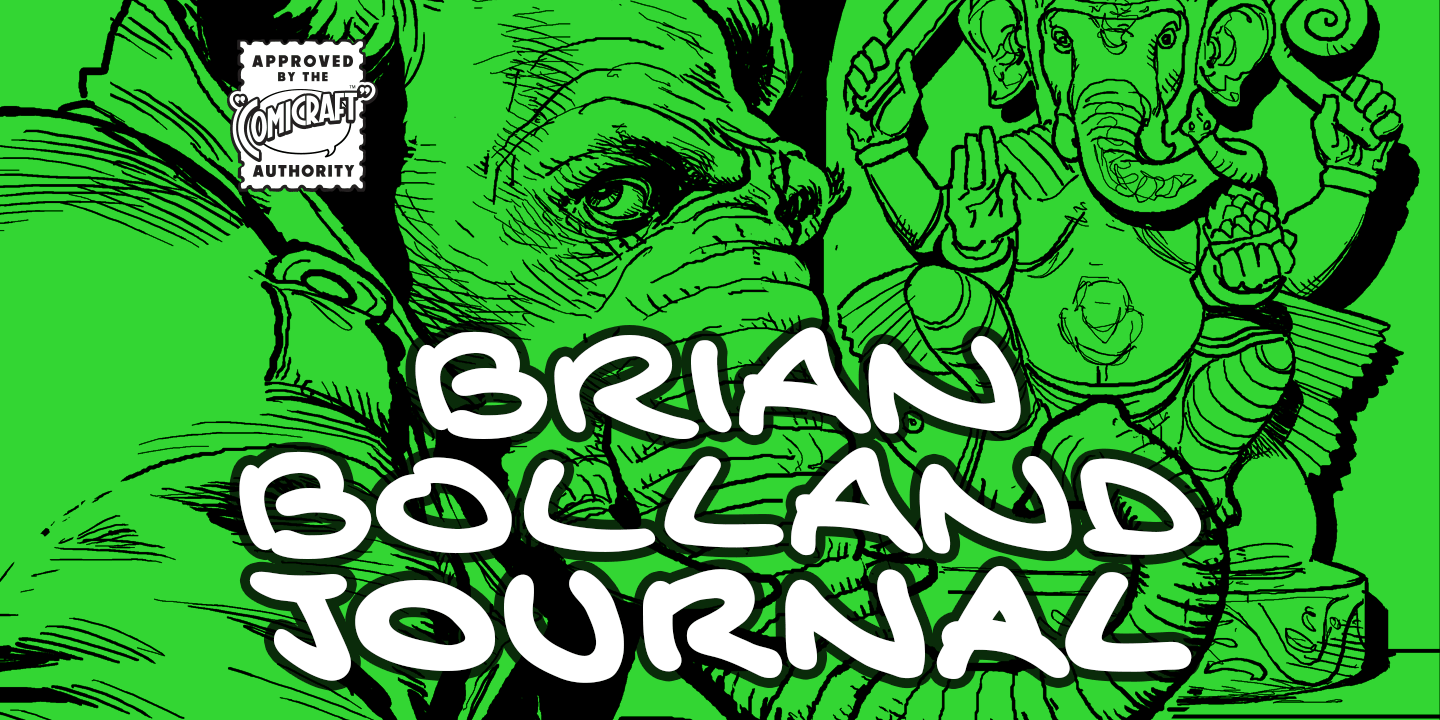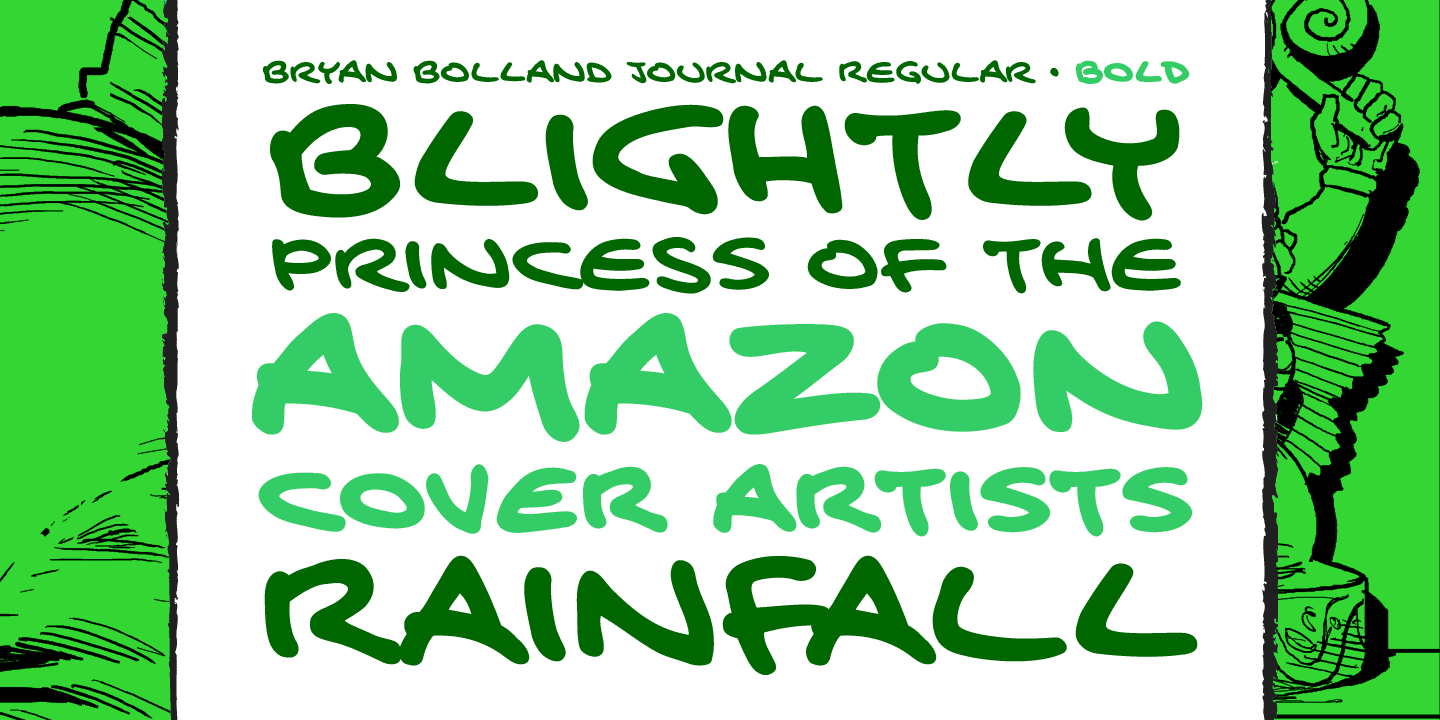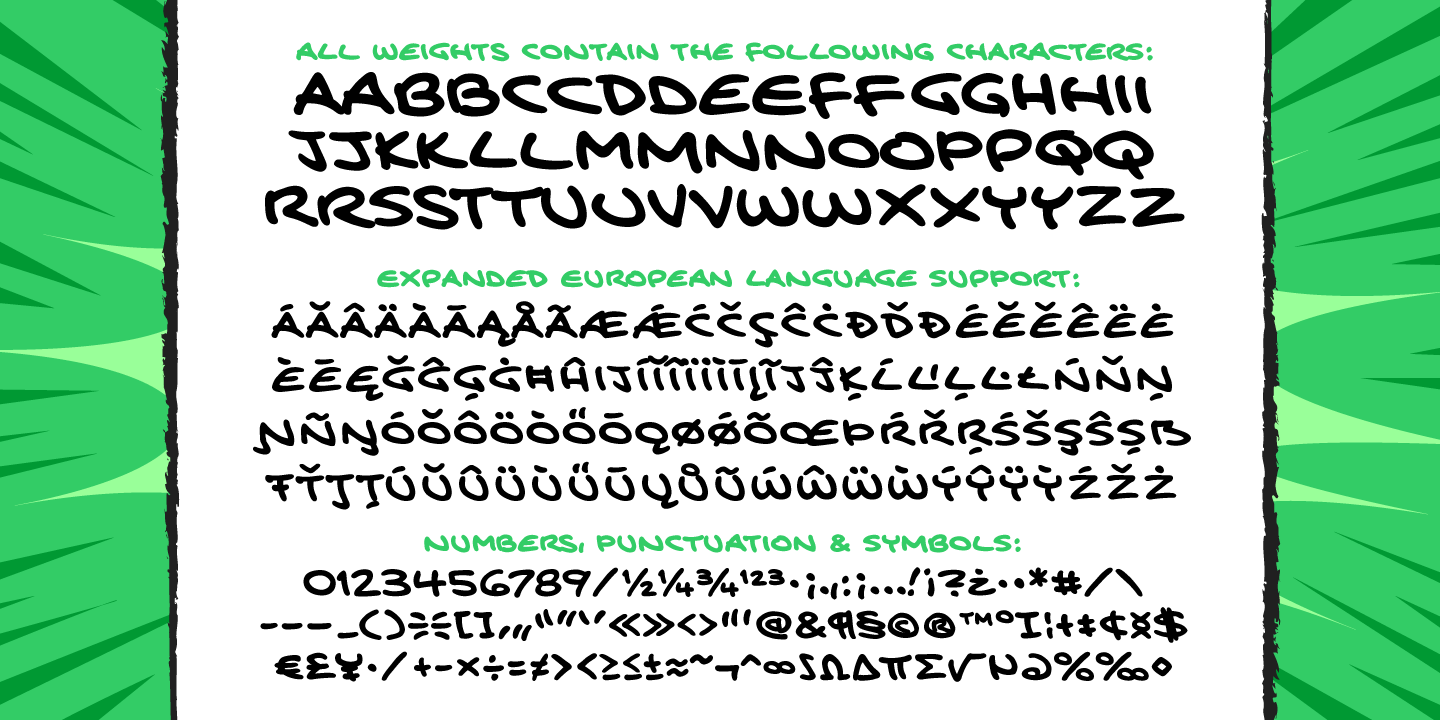
Brian Bolland Journal
Buy NowButterwick-Born Brian Bolland led the British Blitz on DC Comics and besides his brush with BATMAN and GREEN LANTERN, he was bound to be branded as a Superman buff basically because he was baptized BOLLAND, and even the least stalwart SUPERMAN supporters are bound to bring up their basic belief... that the letters LL are legendary in Superman lore! Lex Luthor! Lana Lang! Lois Lane! Brian Bolland!
Bolland is best known in Blighty as one of the definitive JUDGE DREDD artists for the long running comics anthology 2000 AD. He now works digitally, as evidenced by the ELEPHANTMEN artwork you see here, however, he created one of his most famous comic books, BATMAN: THE KILLING JOKE with pencils, pens and brushes. Comicraft's president and First Tiger wants it to be noted here that he himself also lettered BATMAN: THE KILLING JOKE with a pen.